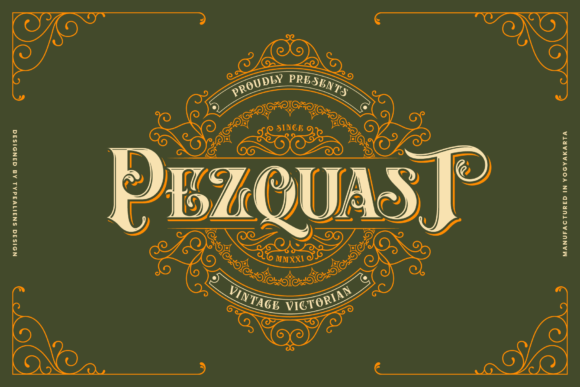
Behold the Pezquast Font, a typographic masterpiece that exudes vintage charm and captivating allure. Immerse yourself in the timeless beauty of this display font, meticulously crafted to elevate your creative endeavors to new heights. Unleash your imagination and allow Pezquast's bold presence to transform your words into captivating masterpieces.
Journey back to an era of elegance and sophistication with Pezquast, a font that captures the essence of bygone days. Its distinct character adds a touch of nostalgia to your designs, evoking a sense of longing and wonder. Whether you're designing labels, branding, posters, or any creation that demands a bold statement, Pezquast delivers an impeccable result, leaving an unforgettable impression.
With Pezquast, you possess a font that transcends the boundaries of ordinary typography. Its versatility knows no limits, adapting seamlessly to a myriad of projects. Let Pezquast infuse your text graphics with an aura of distinction, capturing the attention of your audience and leaving them spellbound. Unleash your creativity and watch as Pezquast transforms your digital dreams into tangible masterpieces.
Crafted with meticulous care and attention to detail, Pezquast embodies the perfect fusion of form and function. Its carefully designed characters dance upon the page, inviting your eyes to linger and explore the intricate details that make this font truly exceptional. Indulge in the visual feast that Pezquast offers, as it elevates your creations to new heights of elegance and sophistication.
Embrace the legacy of Pezquast, a font steeped in history and tradition. Let its timeless allure enhance your designs, adding a touch of vintage charm to your modern creations. Pezquast is more than just a font; it's an artistic expression that transcends time, connecting you with the past while propelling your designs into the future.